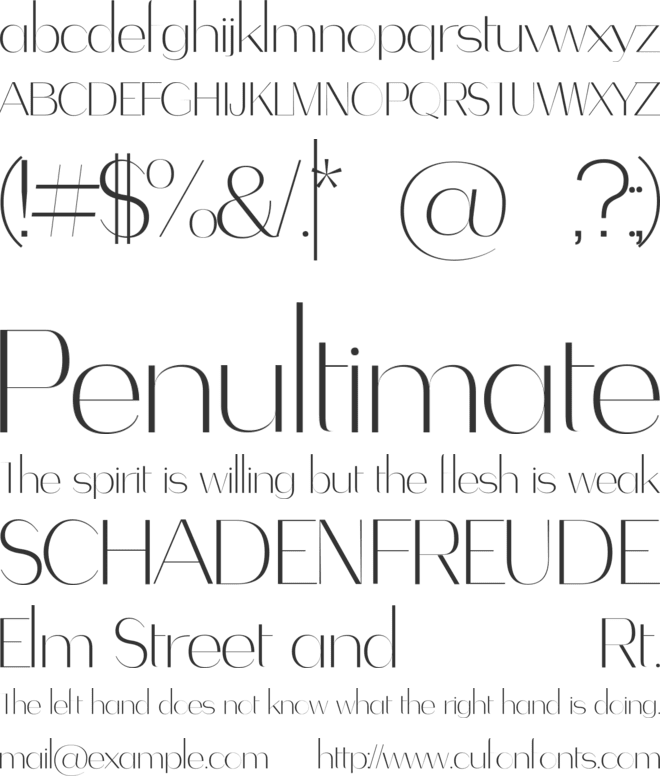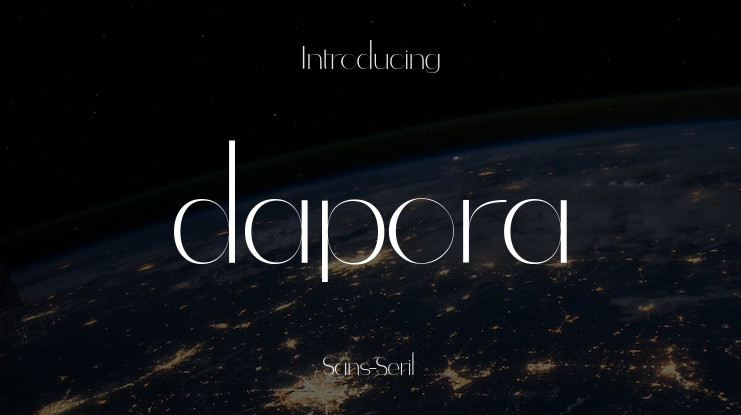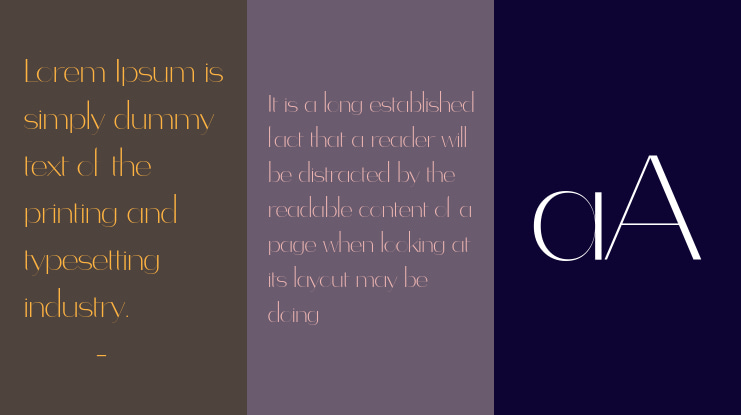
dapora Font Family
Dapora is a delicate sans serif with multilingual support—perfect for minimalist branding, lifestyle packaging, and editorial elegance.